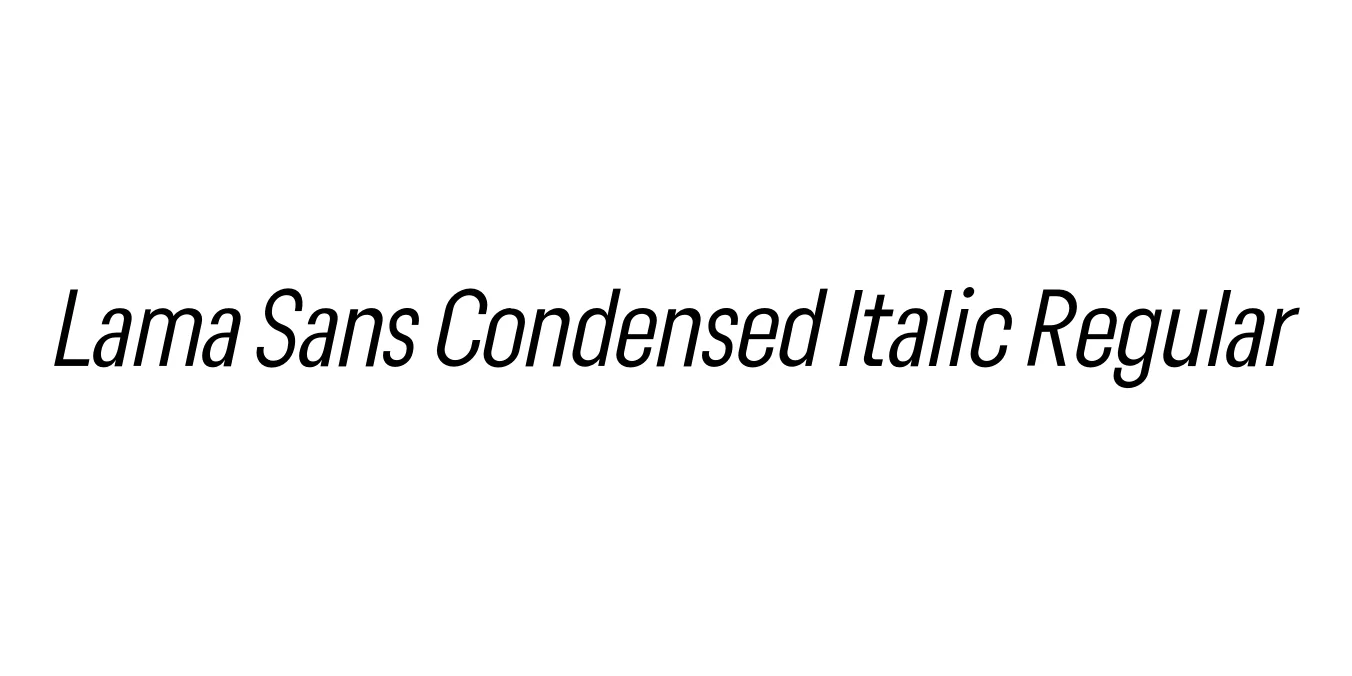
Lama Sans Condensed Italic Regular
Designed by Maxim Gulivatenko
Lama Sans Condensed Italic Regular is a sophisticated member of the expansive Lama Sans font family, meticulously crafted to bridge the gap between high-impact display aesthetics and functional text clarity. Its condensed proportions allow for efficient space management in complex layouts, while the subtle italic slant adds a dynamic, forward-moving energy to the text. The typeface is characterized by its geometric precision and modern, minimalist letterforms, making it a staple for designers seeking a contemporary edge.
The Regular weight of the condensed italic variant is particularly effective for contemporary branding and digital interface design. It offers a balanced stroke contrast that remains legible at various scales, making it a versatile choice for both high-resolution screens and traditional print media. Whether used for technical documentation or stylish editorial spreads, Lama Sans Condensed Italic Regular brings a professional and polished feel to any creative project, embodying the principles of modern Swiss-style typography.
Lama Sans Condensed Italic Regular Best Uses
Creating modern logos and professional identity systems.
Ideal for space-saving mobile interfaces and dashboard elements.
High-impact choice for magazine headlines and stylish call-outs.
Excellent for narrow poster layouts and digital banners.